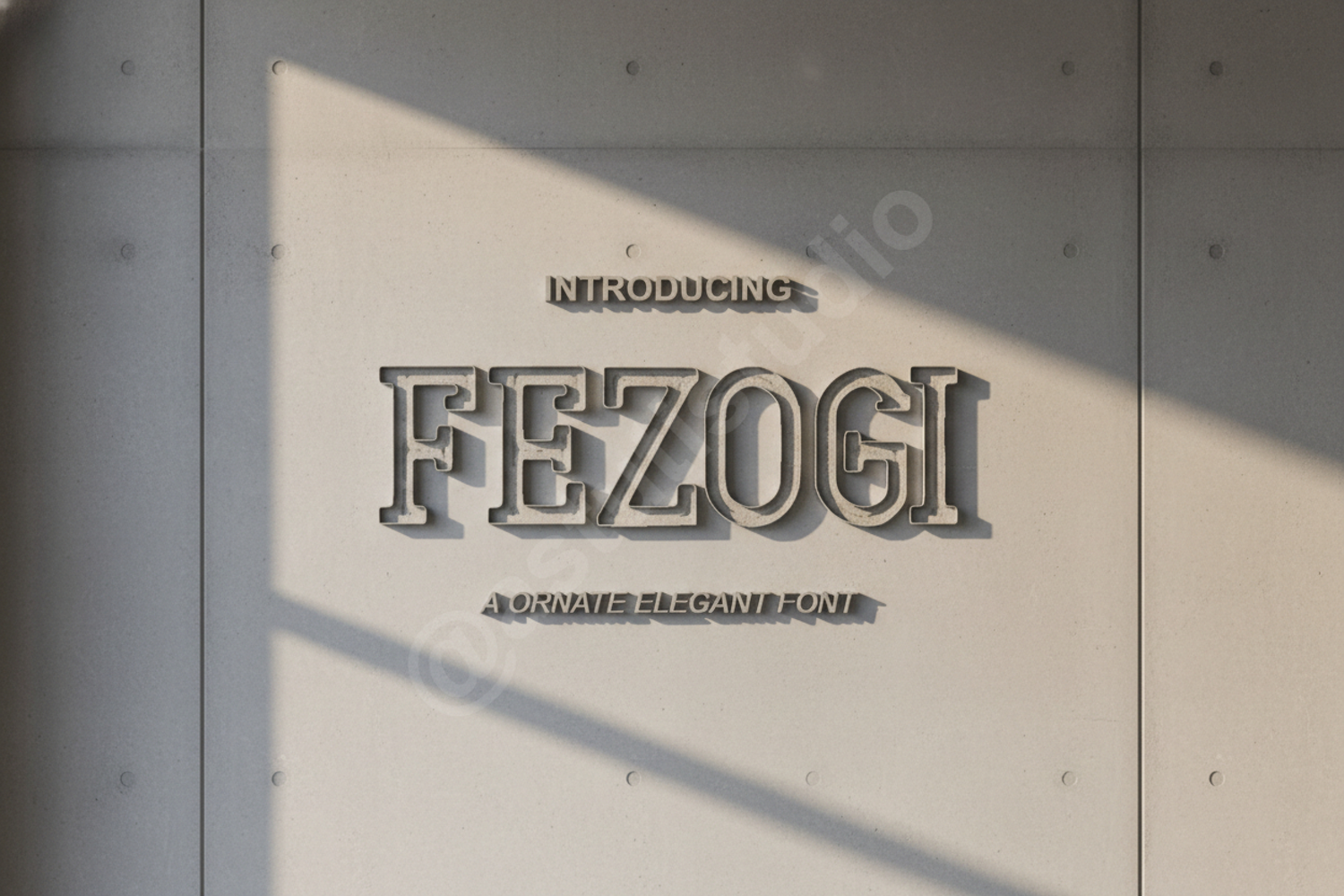
Fezogi - Sophisticated Modern Serif Typeface
Fezogi
Fezogi is a premium serif typeface meticulously crafted to blend classic elegance with a contemporary edge. This font is designed for creators who demand high-quality typography that stands out in a crowded market. With its balanced proportions and refined curves, Fezogi brings a sense of luxury and professionalism to any design project, ensuring your work looks polished and high-end.
- Branding and Identity: Perfect for creating memorable logos and cohesive brand systems for luxury labels.
- Wedding and Event Stationery: Elevate invitations, save-the-dates, and event menus with a touch of timeless class.
- Editorial Design: An excellent choice for magazine headers, book covers, and sophisticated layout designs.
- Social Media Content: Enhance your digital presence with stylish quotes, stories, and promotional banners.
- Product Packaging: Ideal for premium product labels, cosmetic packaging, and boutique retail tags.